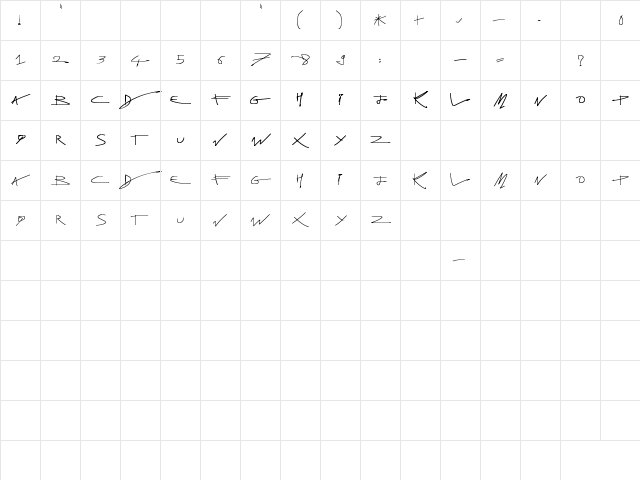
Graphic Trash Regular
Design Context for Graphic Trash Typeface
Graphic Trash is a composed and adaptable typeface that performs quietly and consistently across a wide range of design contexts.